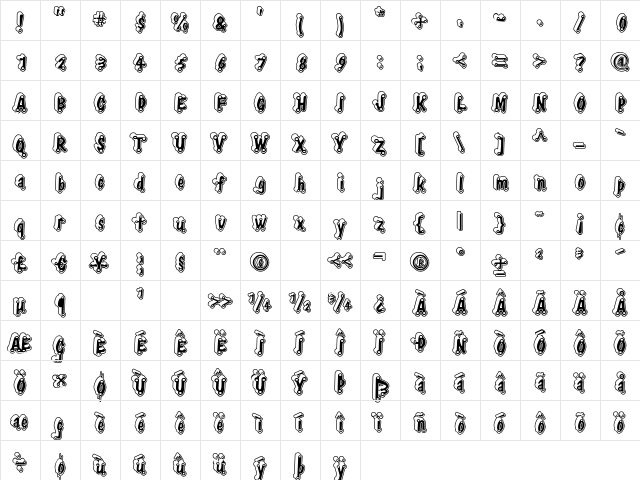
ElliottsTyphpoidMThrDDark Regular
Design Context for ElliottsTyphpoidMThrDDark Typeface
ElliottsTyphpoidMThrDDark is a composed and adaptable typeface that performs quietly and consistently across a wide range of design contexts.
Pro Tip: Pair ElliottsTyphpoidMThrDDark with a font of contrasting weight or personality to build a more expressive typographic hierarchy.